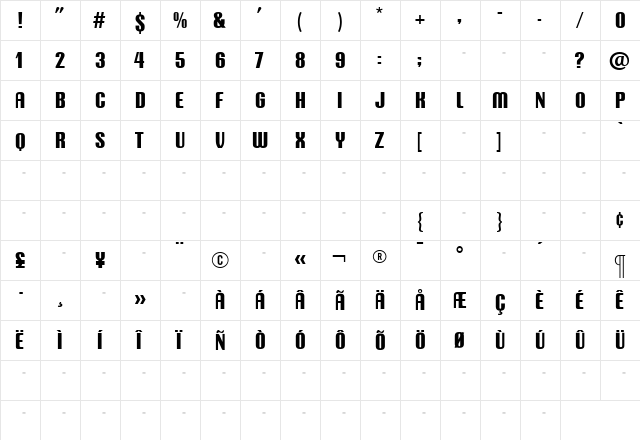
QuestBold Roman
Design Context for QuestBold Typeface
QuestBold is a composed and adaptable typeface that performs quietly and consistently across a wide range of design contexts. Its bold stroke weight gives it real presence on the page.
Pro Tip: Pair QuestBold with a font of contrasting weight or personality to build a more expressive typographic hierarchy.